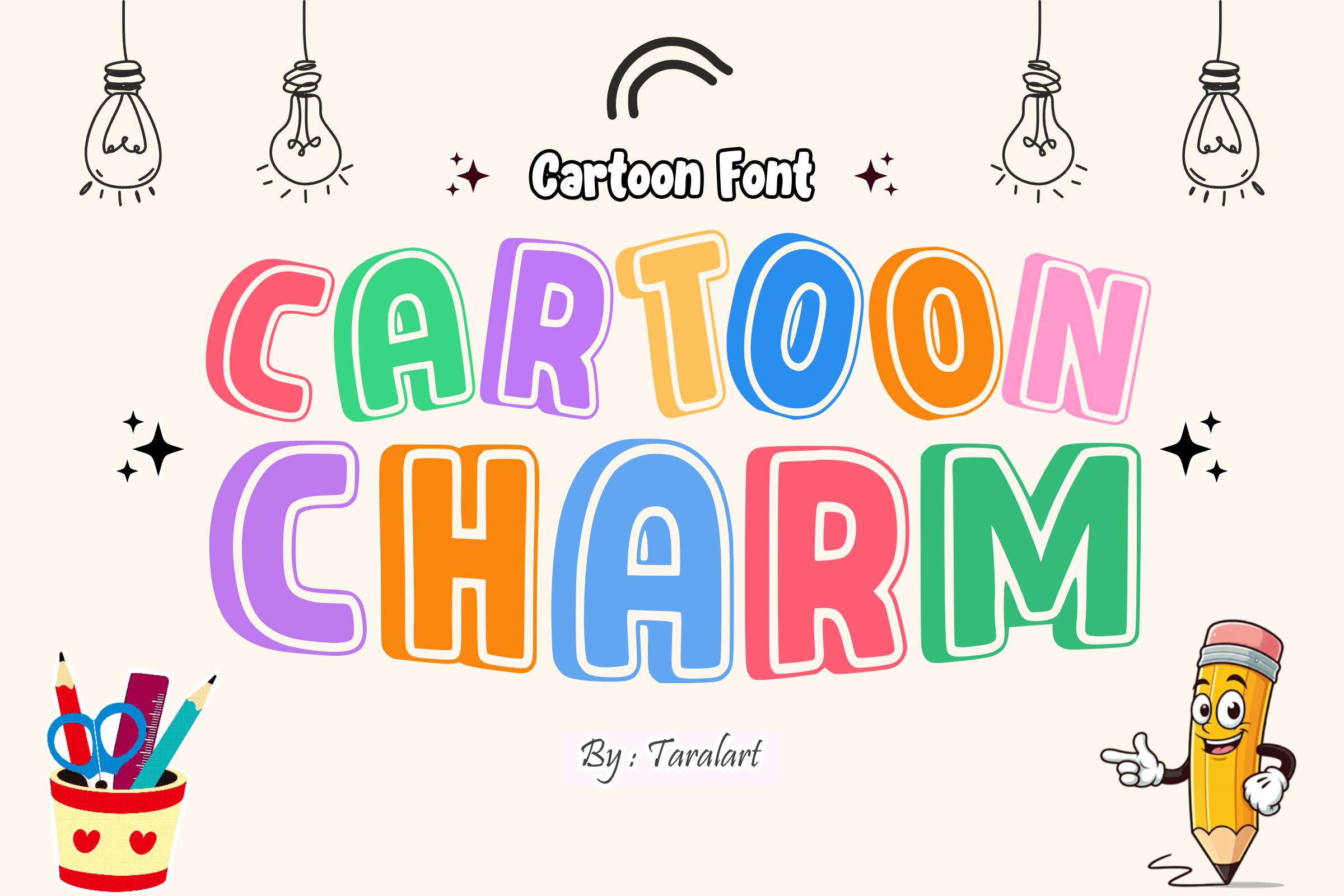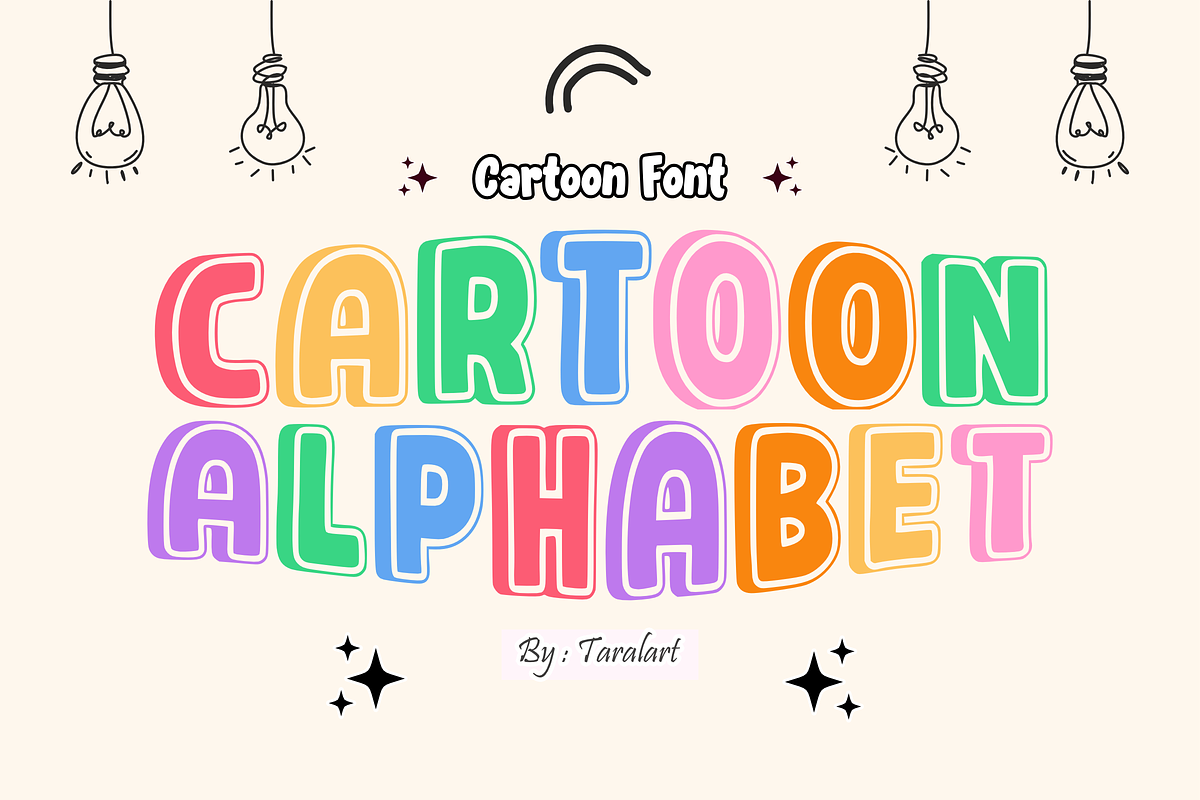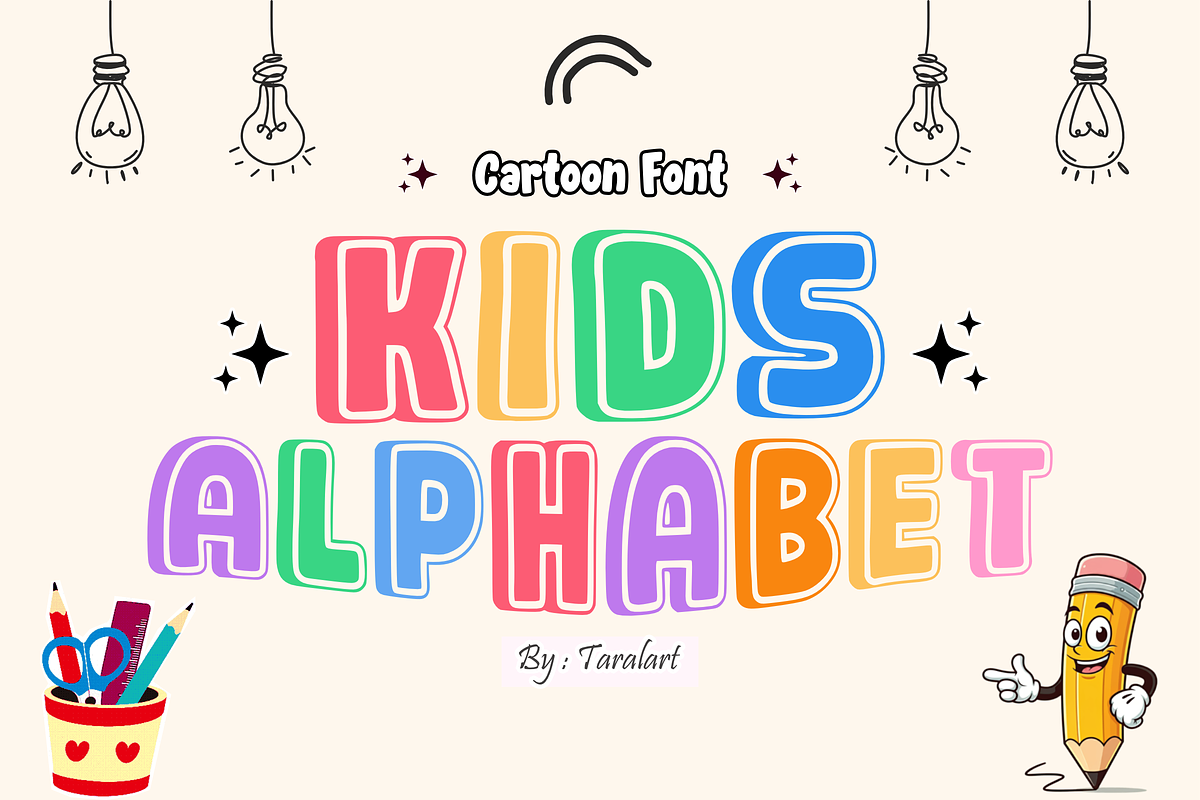
CARTOON CHARM - Playful Kids Font
CARTOON CHARM - Playful Kids Bubble Font
Infuse your designs with instant joy and lighthearted energy with Cartoon Charm! This ultra-bold display font features chunky, rounded, balloon-like letterforms that give your headlines an incredibly friendly, fun, and classic animation feel. It is the ultimate "Kids Font Type" designed to make your text pop with charismatic personality.
Perfect for classroom graphics, children's products, and trend-focused crafting, Cartoon Charm masterfully pairs a whimsical comic aesthetic with exceptional legibility. It is highly versatile, deeply expressive, and fully optimized for seamless performance across premium digital cutting tools and professional print workflows.
All-Caps Character Set (Chunky, happy cartoon uppercase letters)
Numbers & Basic Punctuation (Essential, simple symbols included)
Children’s Books, Cute Comic Strips, & Playful Storybook Titles 📚
Cricut, Silhouette, & DIY Holiday Craft Sublimation Projects ✂️
Kids' Product Packaging, Toy Labels, & Birthday Party Decor 🎈
School Projects, Teacher Resources, & Kindergarten Classroom Decor 🎒
Custom Die-Cut Stickers, Social Media Graphics, & Fun Logos 📱